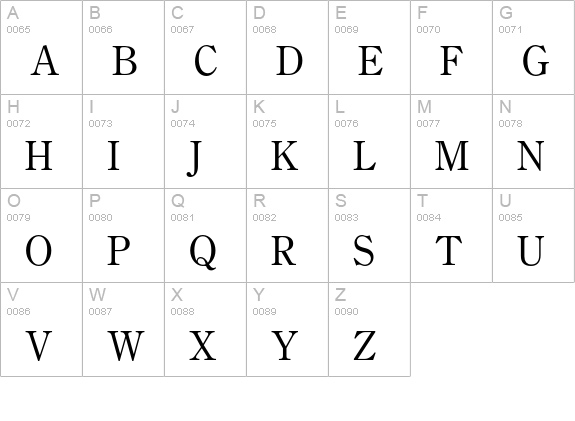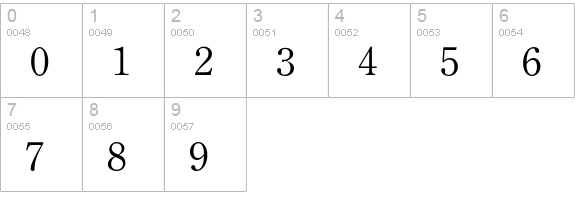
Century Old Style Font Details
Century Old Style font is a timeless and elegant typeface that exudes sophistication and class. With its classic serifs and clean lines, this font is perfect for adding a touch of vintage charm to any project. The versatility of Century Old Style makes it suitable for a wide range of design applications, from invitations and posters to branding and packaging. Best of all, Century Old Style font is available for free download at FontsMarket.com. Whether you're a professional designer or a hobbyist looking to add a touch of old-world charm to your creations, this font is sure to inspire and delight. Download Century Old Style today and bring a touch of timeless elegance to your next project.